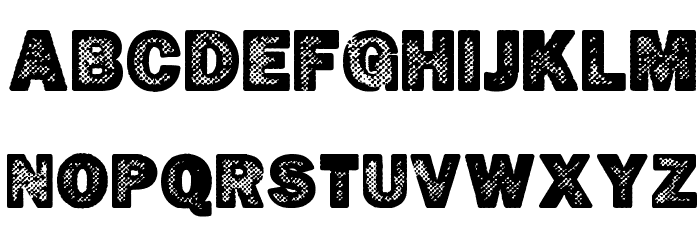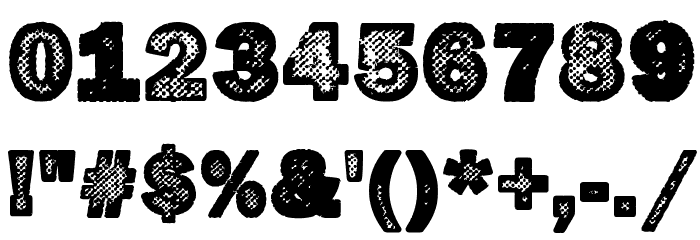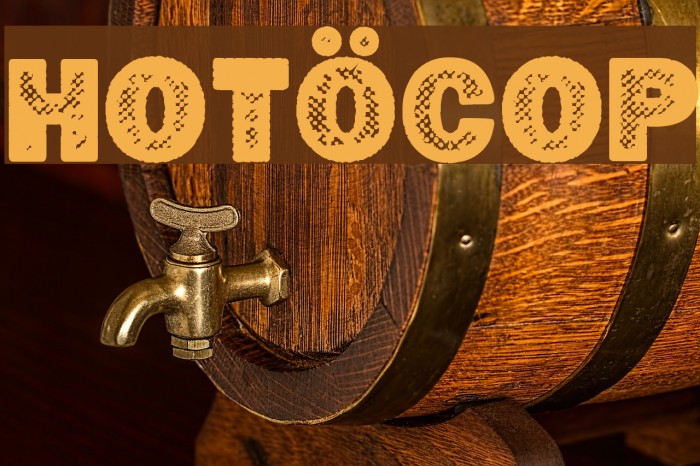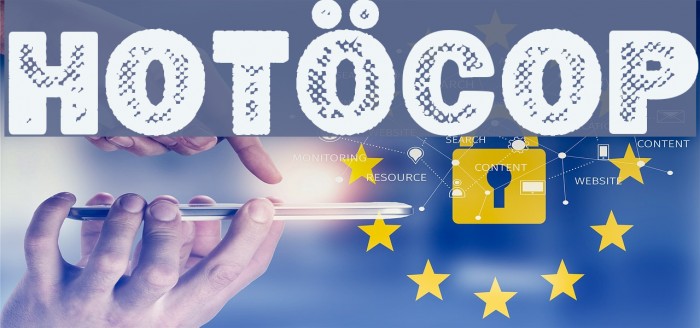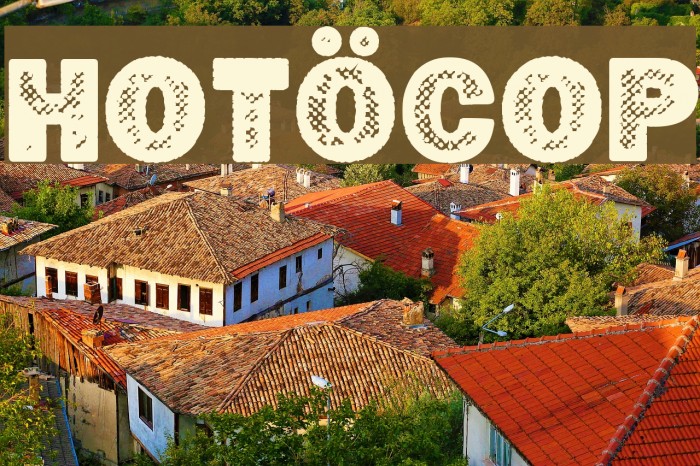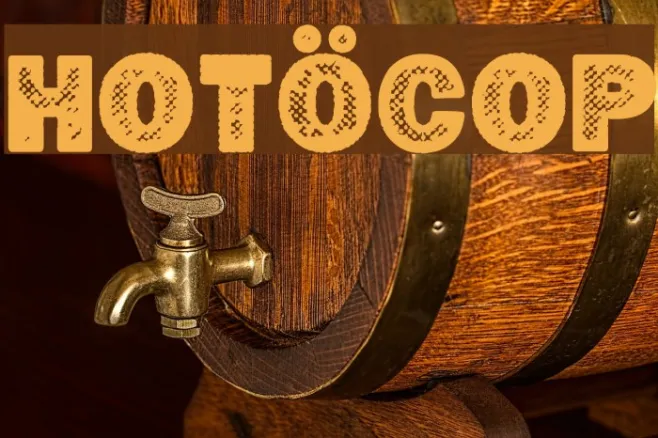
Hotöcop Font
This font features a bold, distressed style with a textured appearance that gives it a rugged and vintage feel. The characters are uppercase and have a substantial weight, making them stand out prominently. The texture within each letter resembles a worn or weathered surface, adding a unique character to the text. The font maintains a consistent width across all characters, ensuring uniformity and balance. Its boldness and distinctive style make it suitable for attention-grabbing designs, where a strong visual impact is desired.
A bold, distressed font with a textured, vintage appearance.
- Proposed Projects: Ideal for poster designs, branding projects, and vintage-themed merchandise.
- Overall Style: Vintage